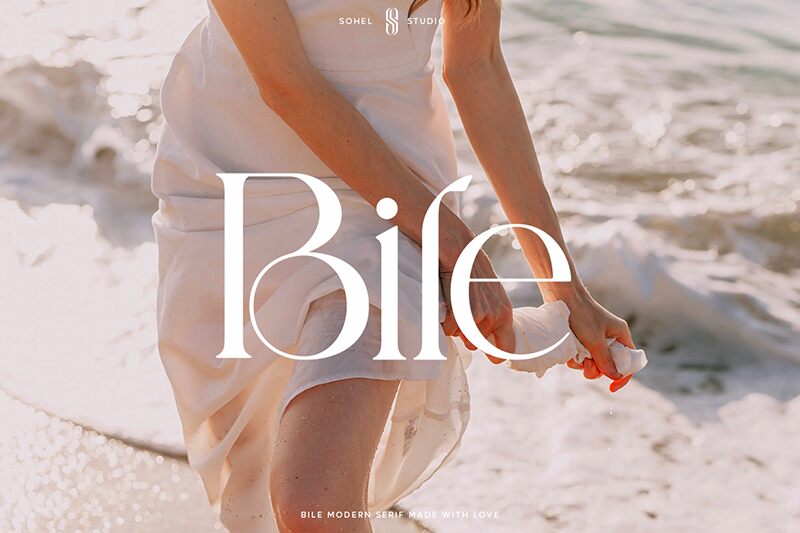
Bile font designed by Sohel Studio is a free serif font with an elegant, modern, and sophisticated look. This refined font features high contrast between thick and thin parts for a more lively appearance. It consists of smooth line ends and corners for a cohesive professional style suitable for different uses.
Applications include social media posts, logo designs, websites, newsletters, business cards, books/ magazine covers and pages. Other ideas to use the font include ads (indoor or outdoor), product packaging design (food or non-food), apps and games decor. The download is free; download the file in OTF format to get started!
**Bile Features:**
- Uppercase & Lowercase letters
- Alternates & Ligatures
- Numerals & Punctuation
- Accented characters
- Multilingual Support